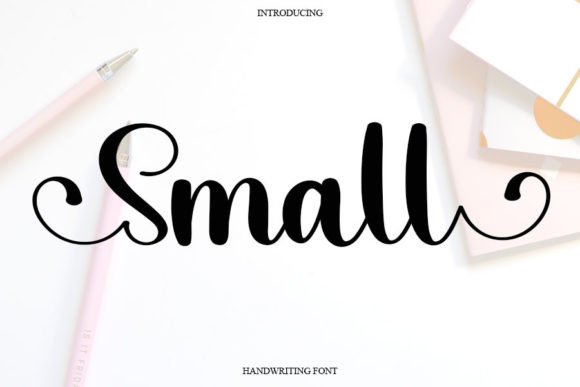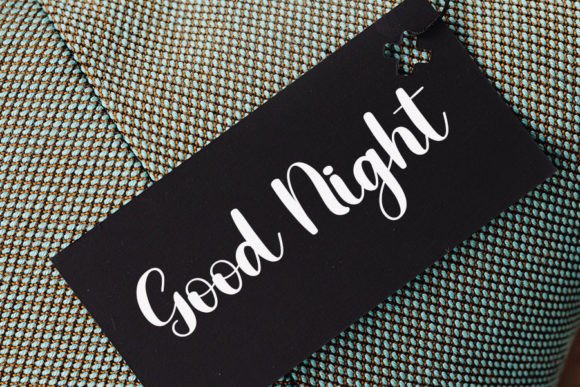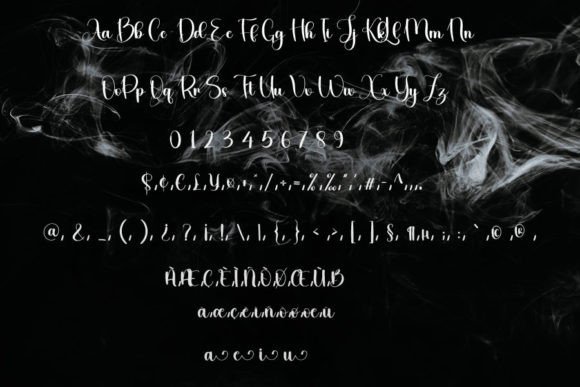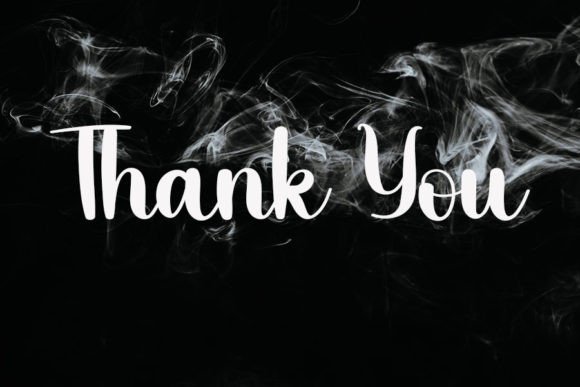
Small Font
About Small Font
Small is a simple handwritten font. This versatile font has a wide spectrum of applications ranging from greeting cards to headlines and is guaranteed to add a simple and natural feel to your next project!